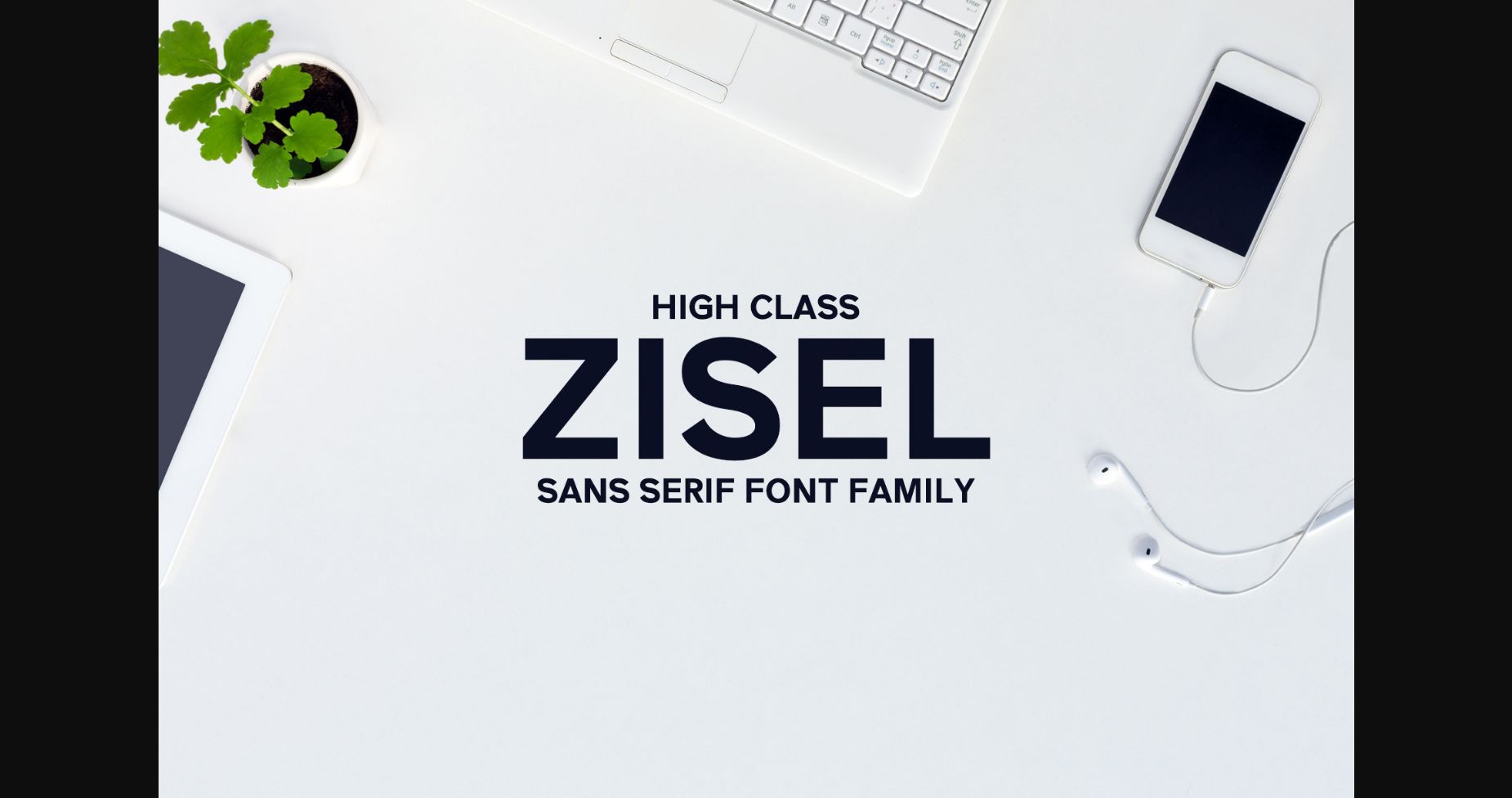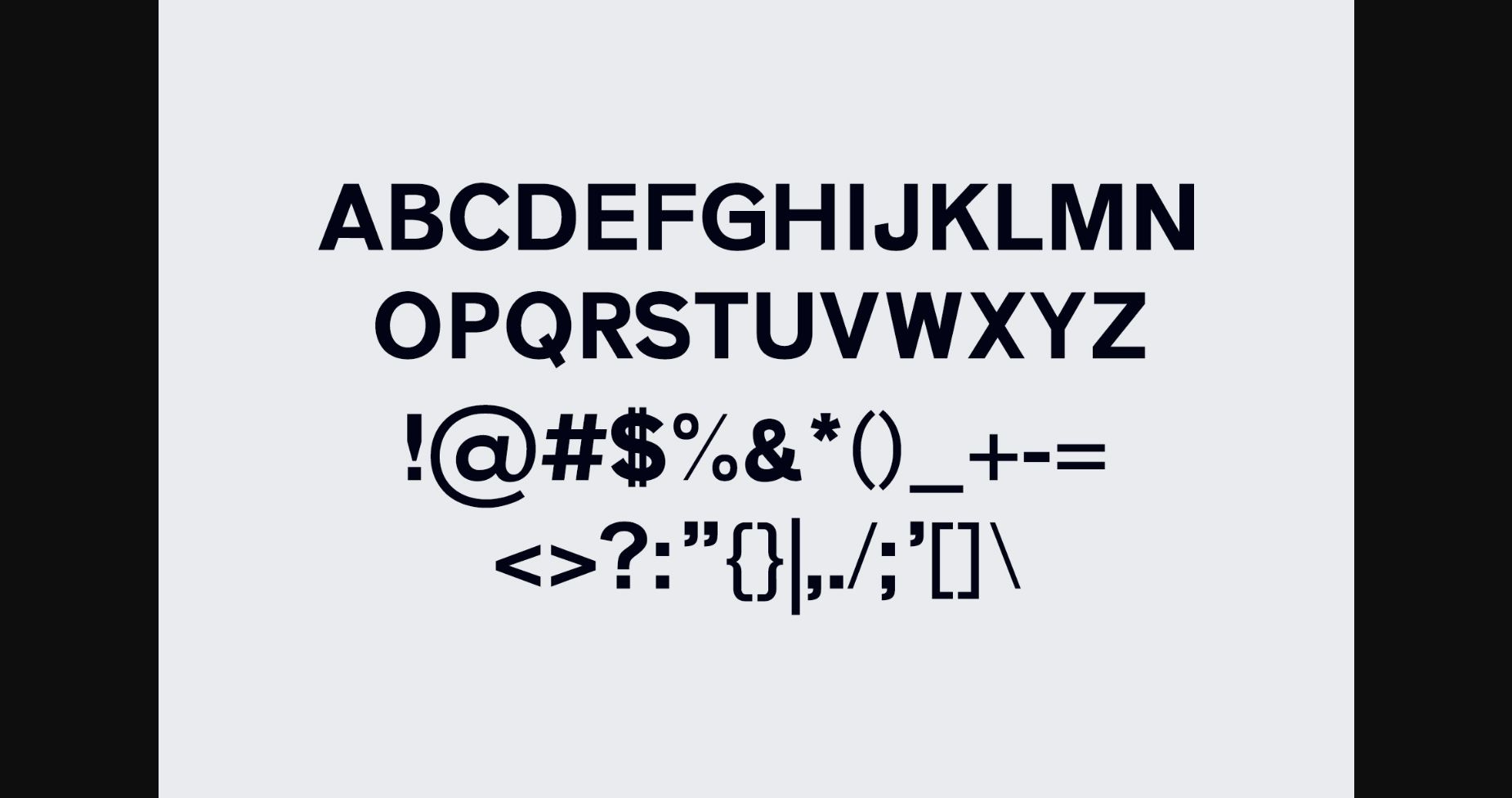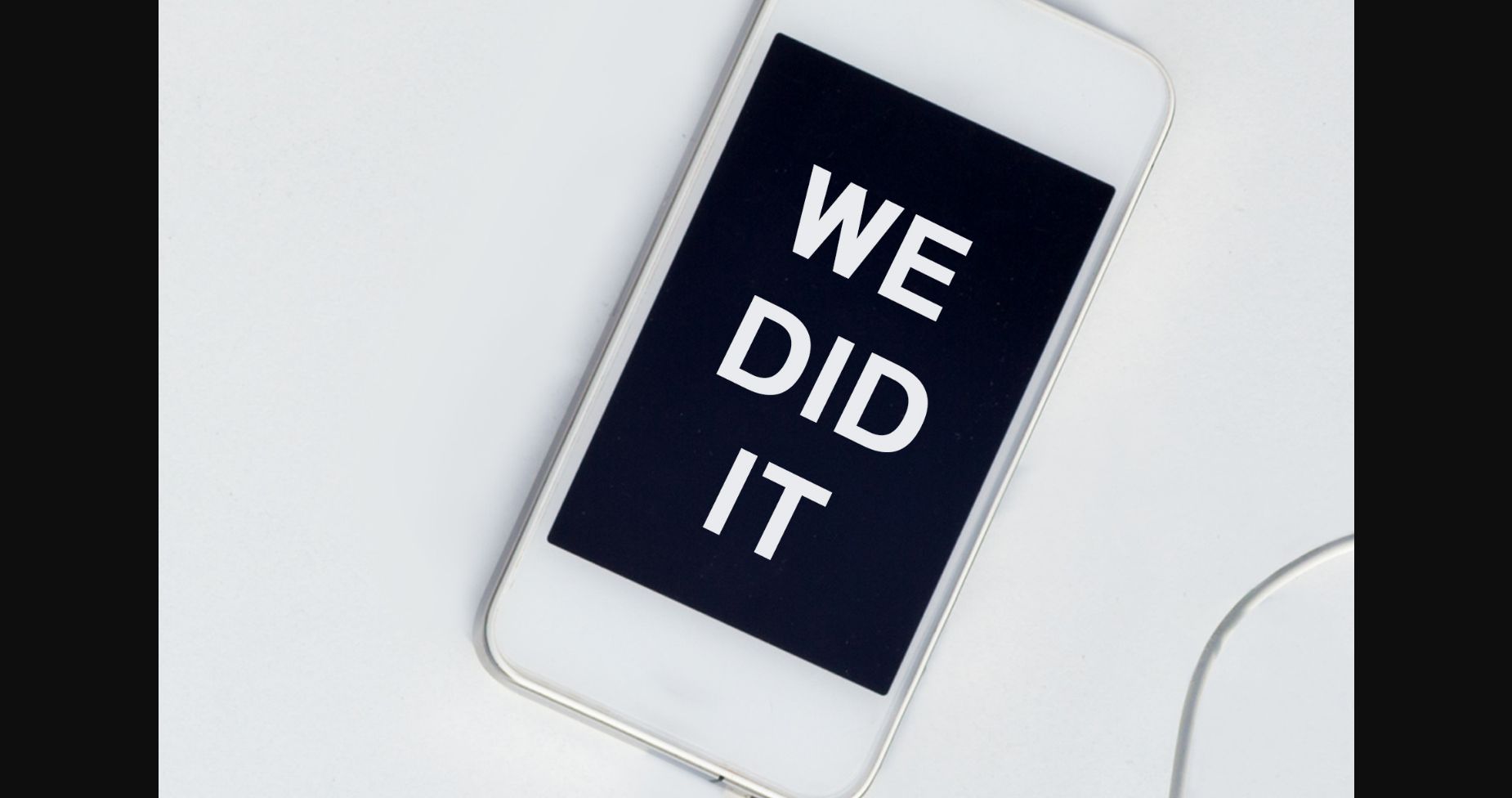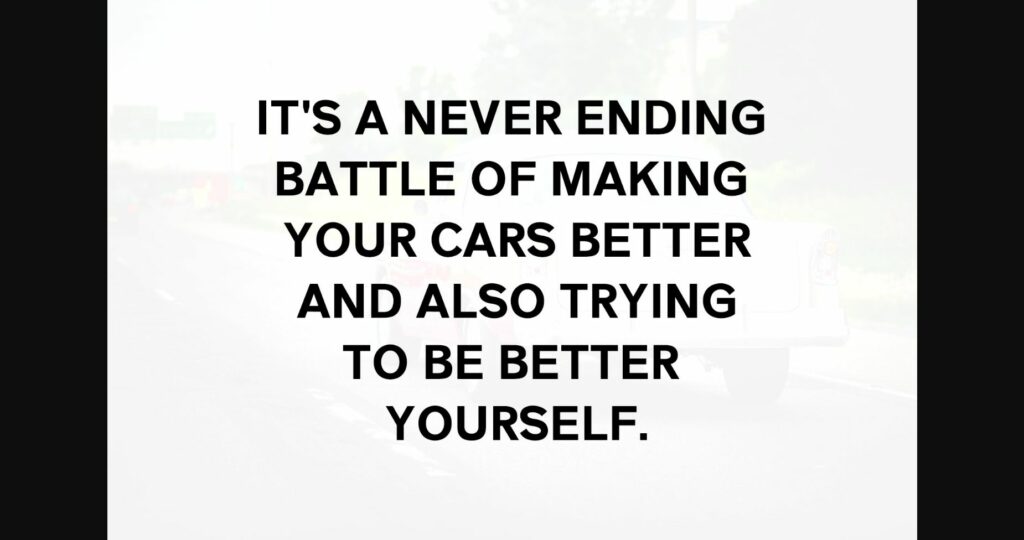
About Zisel Family Font
Zisel is a clean and bold sans serif font family. It works wonderfully well with modern projects that need clean and easy-to-read typography.